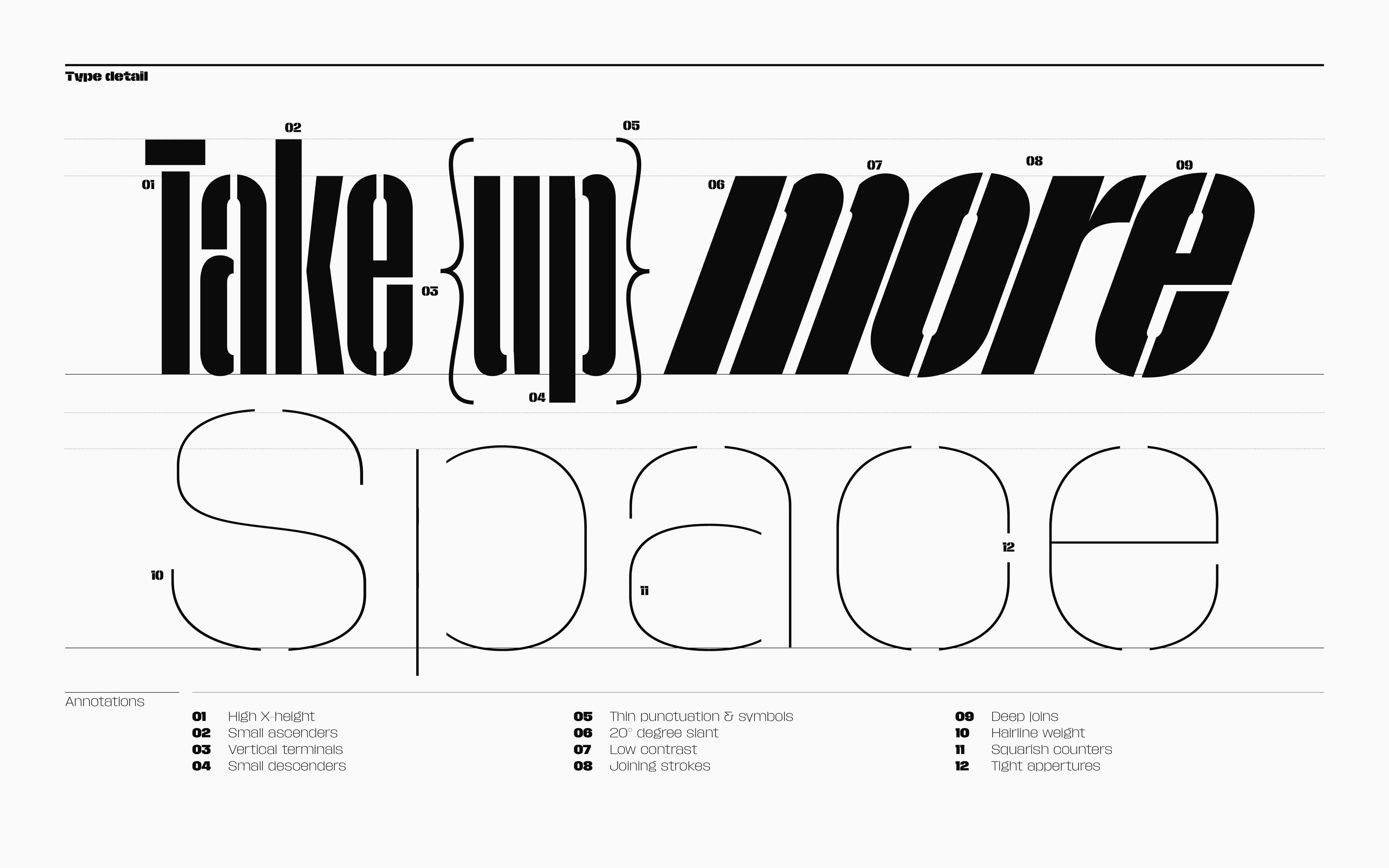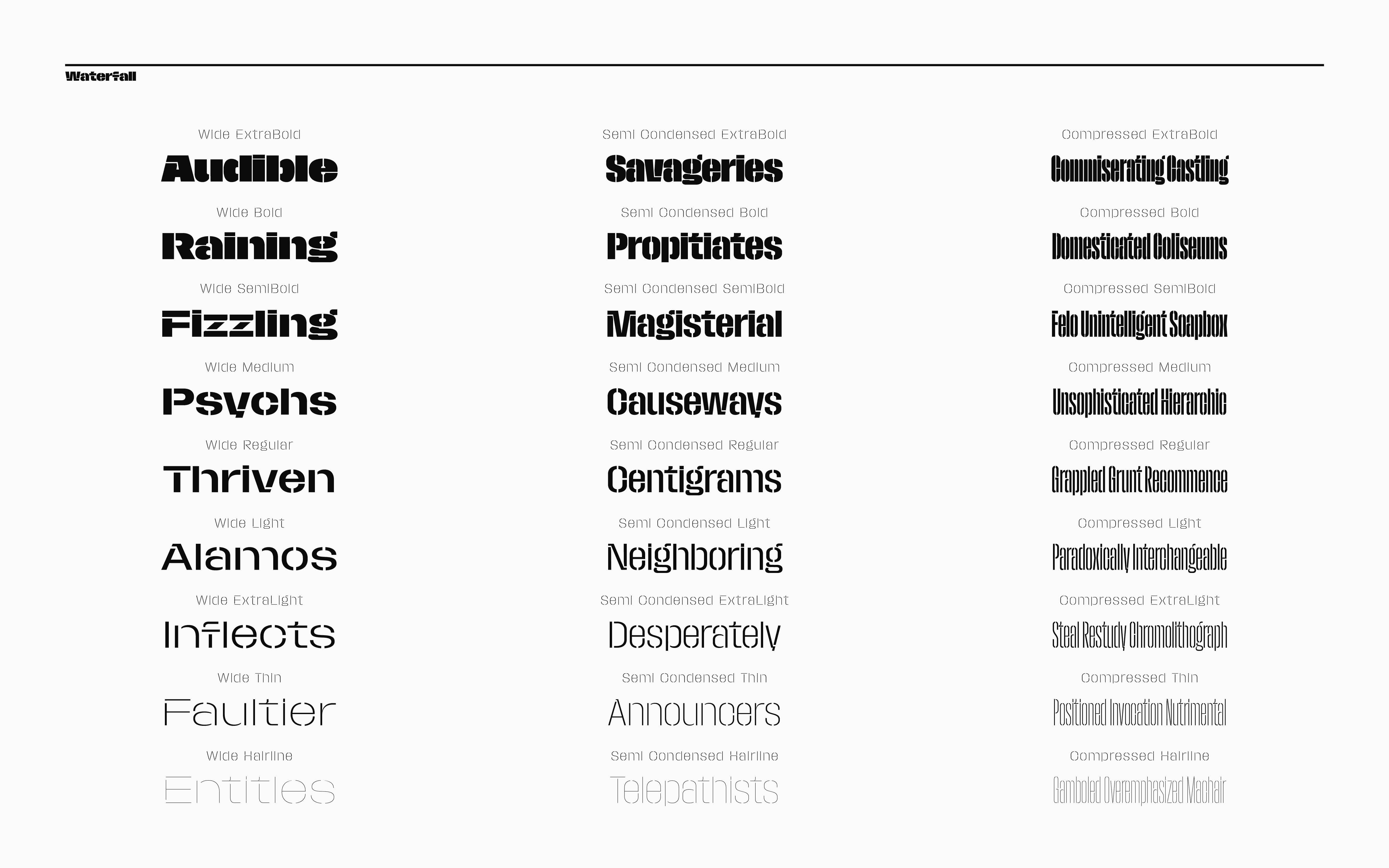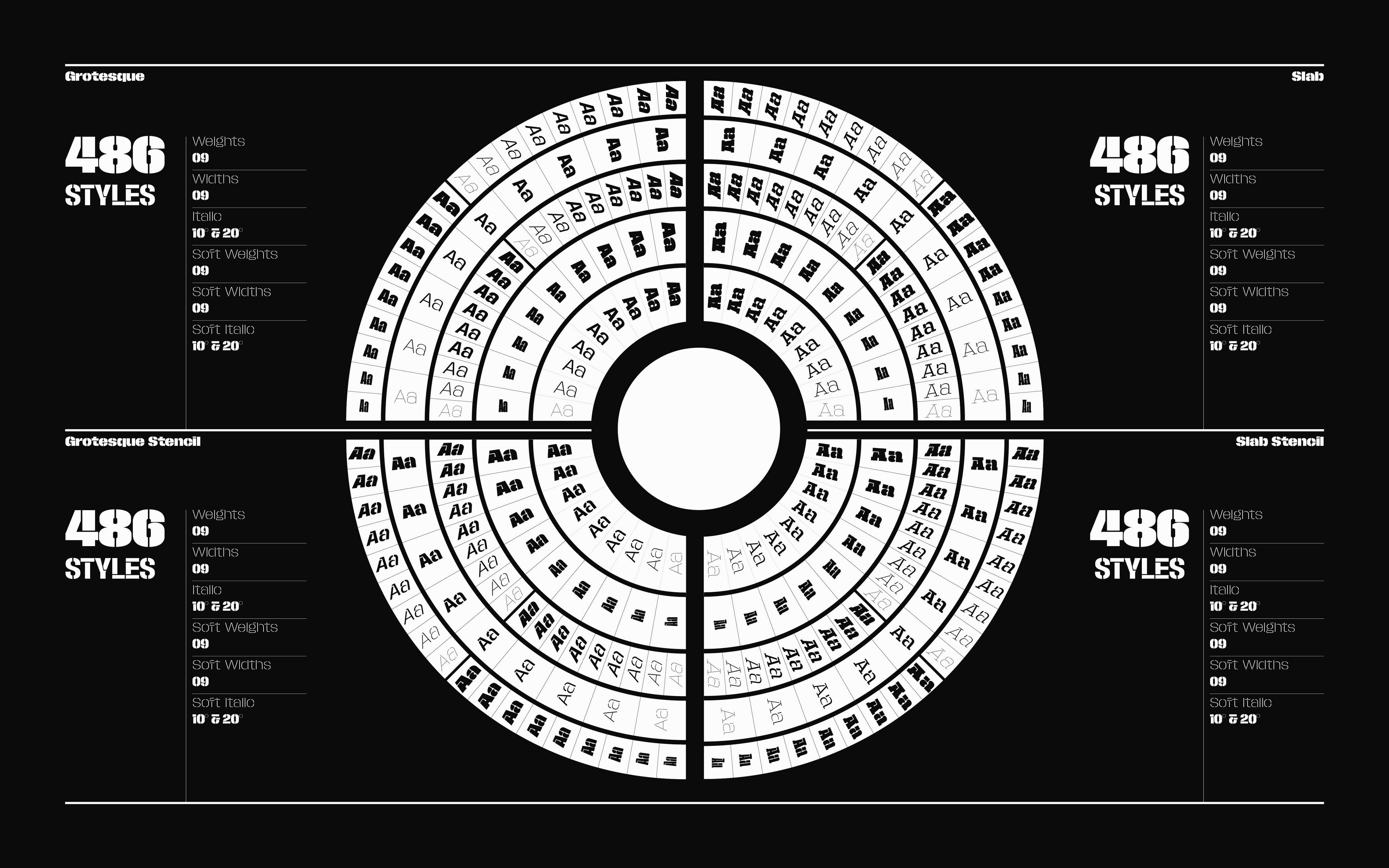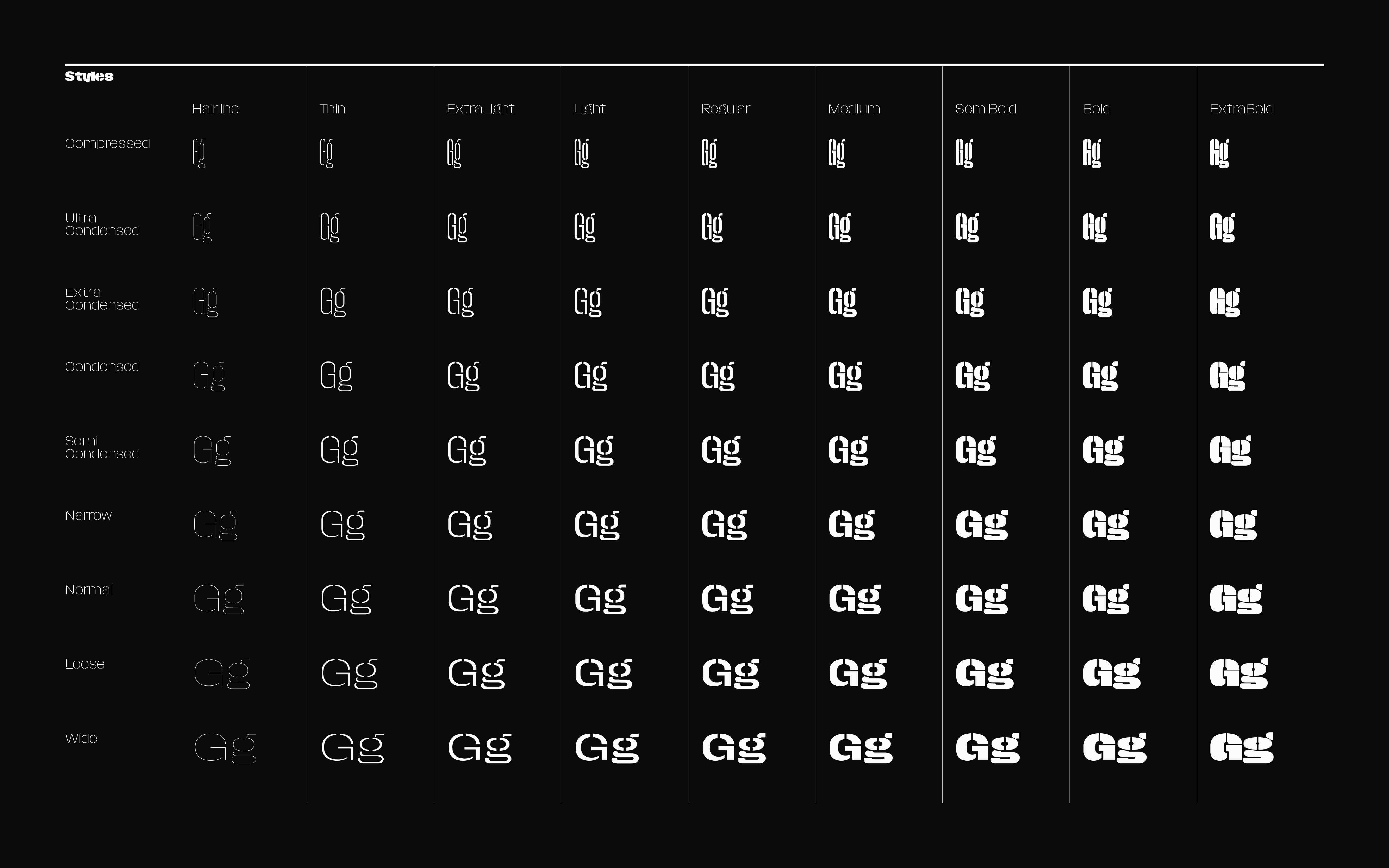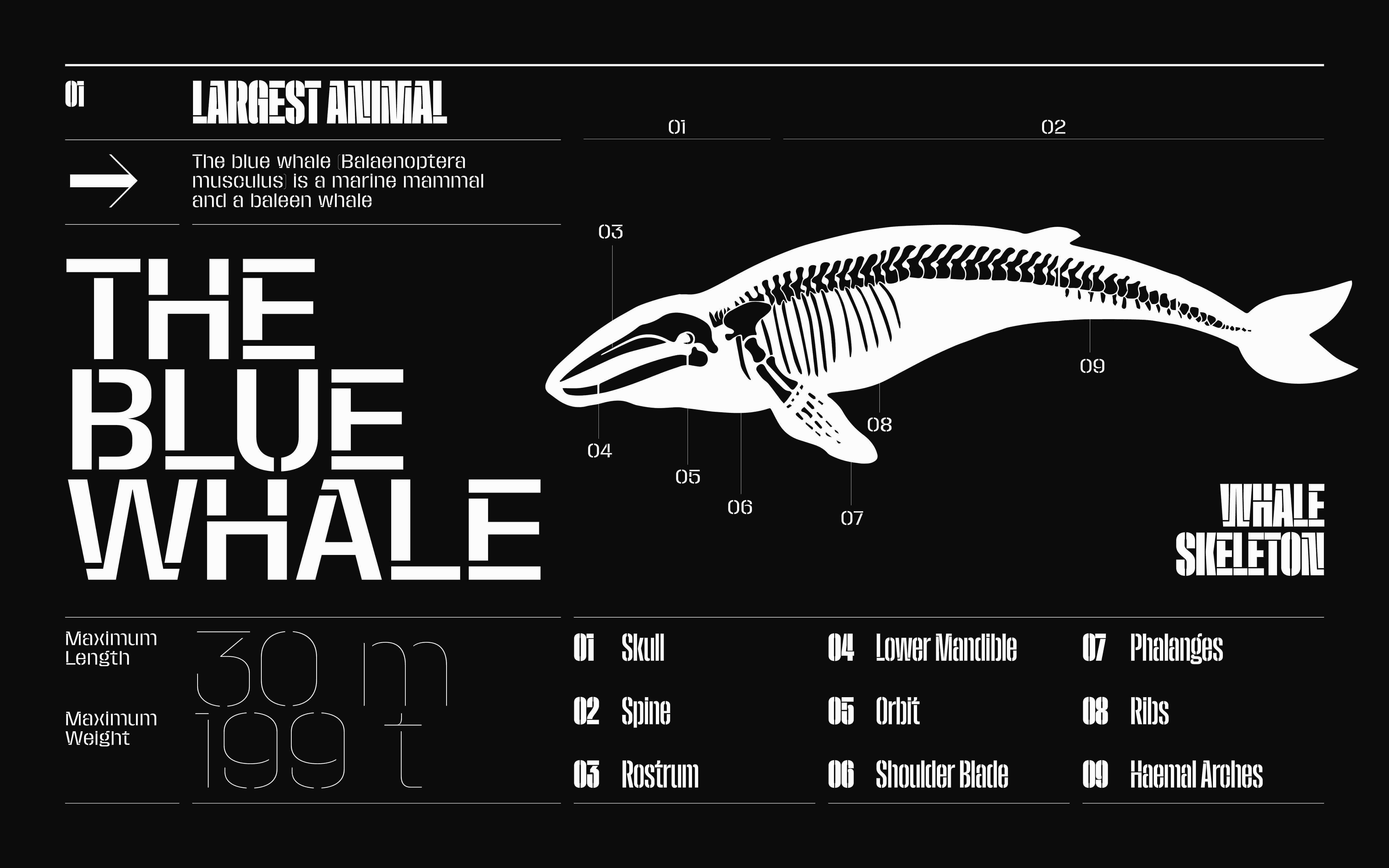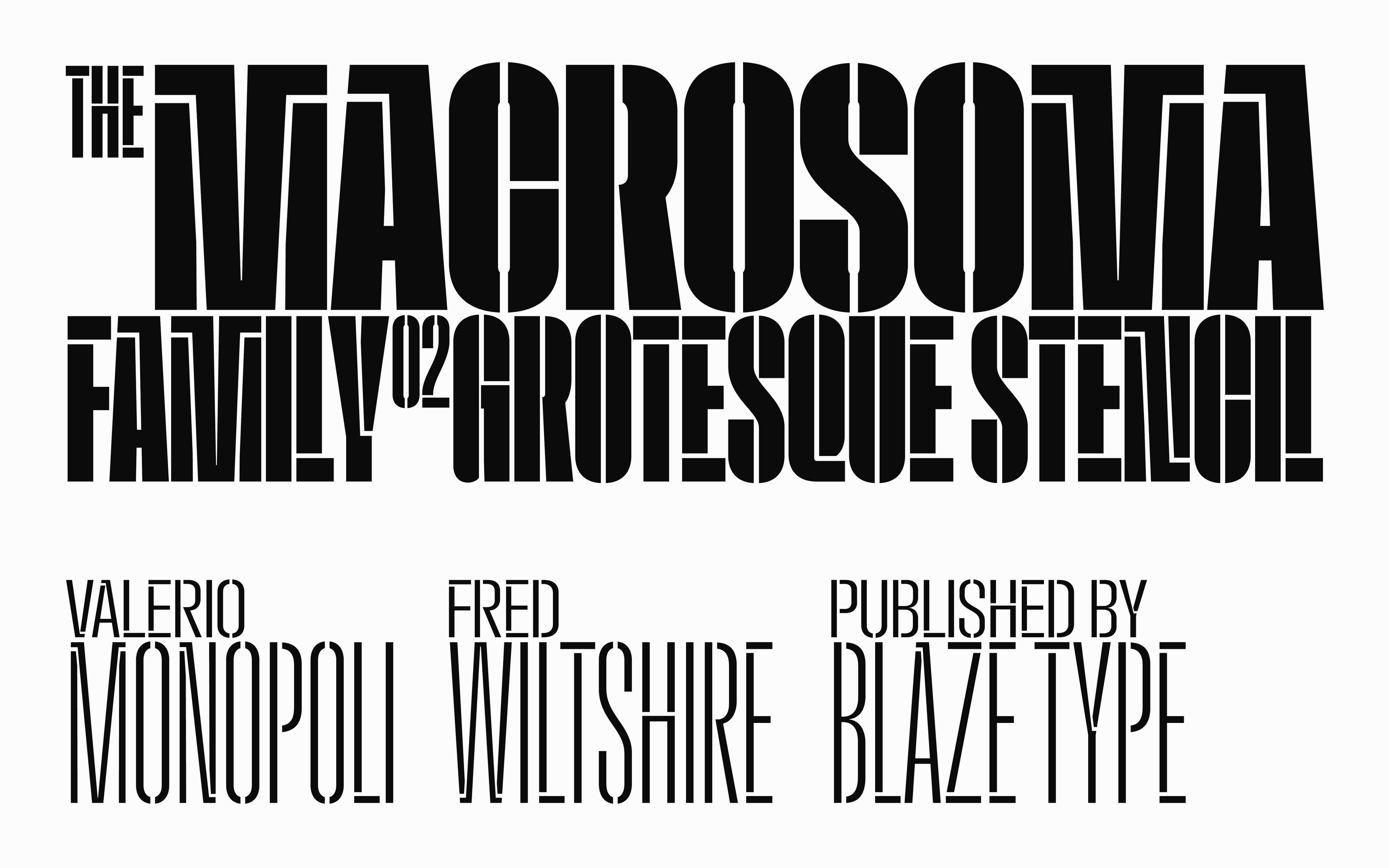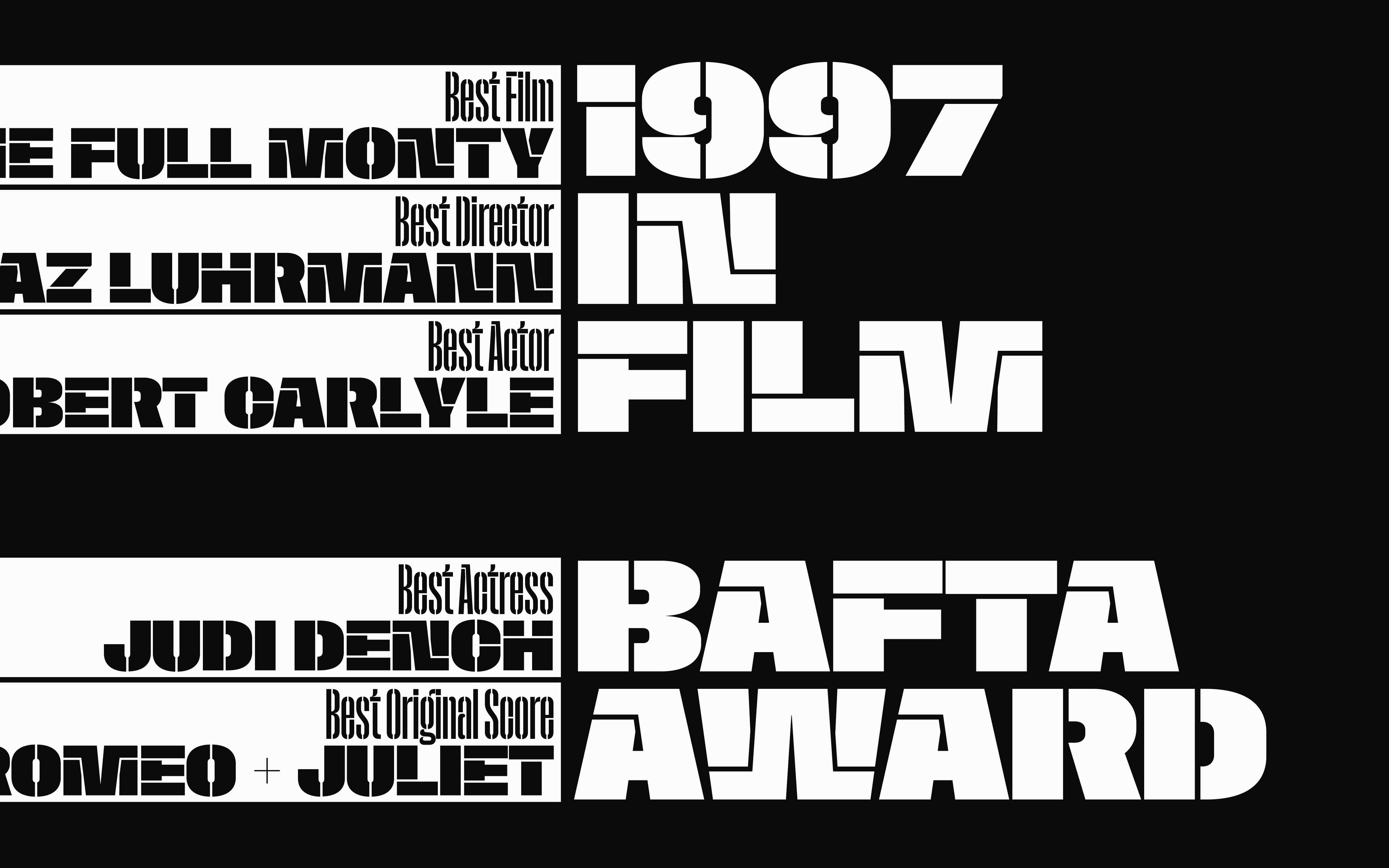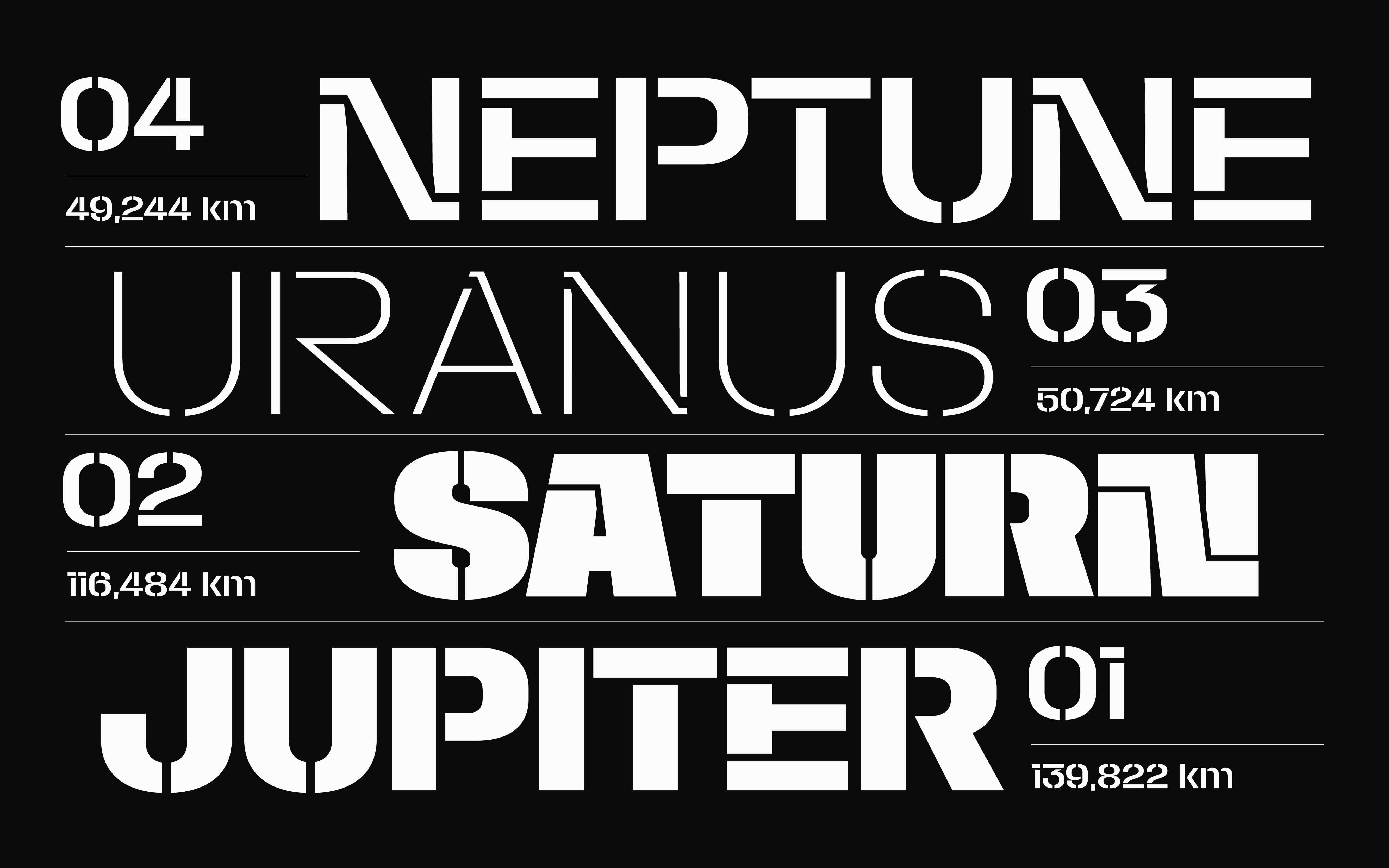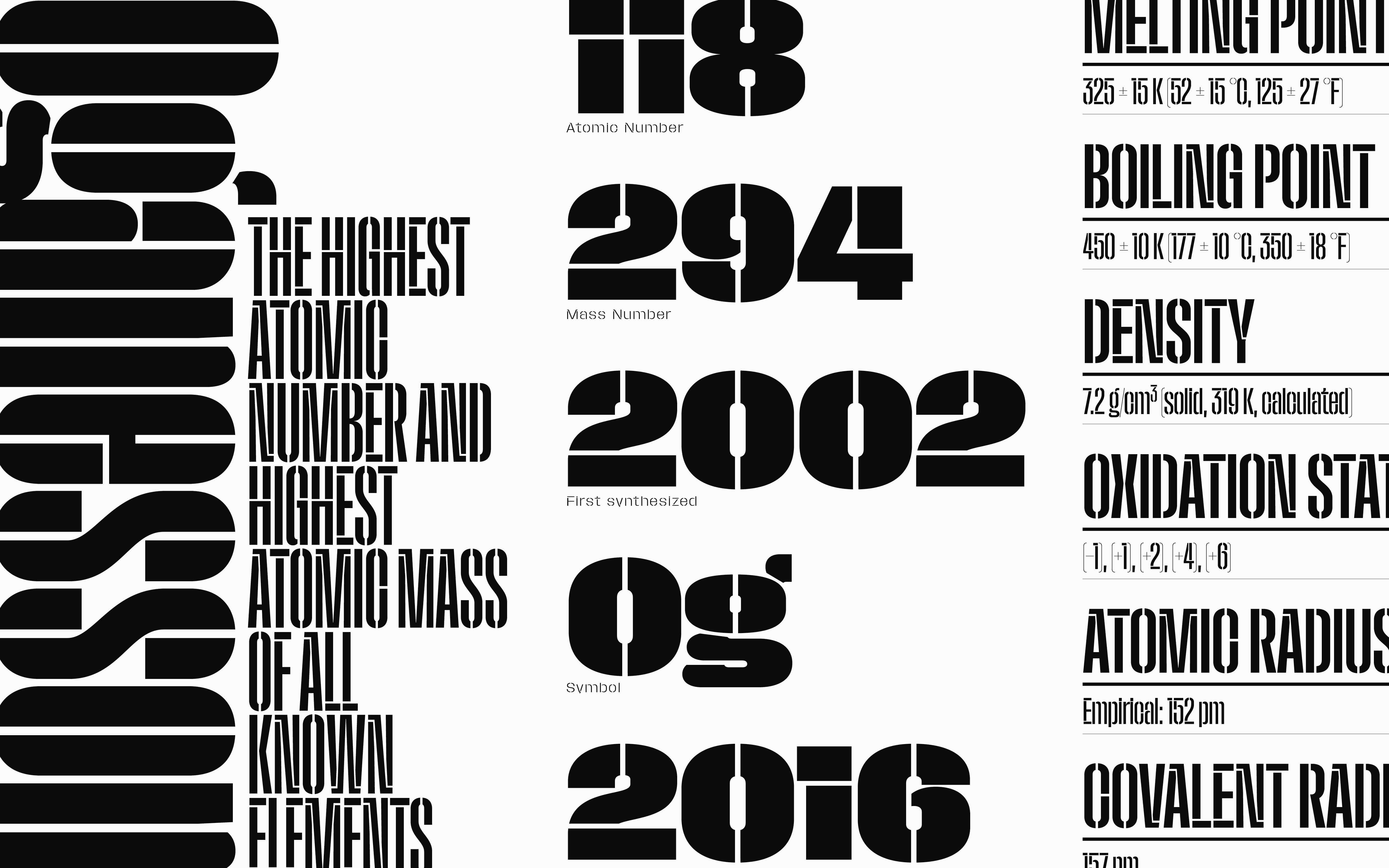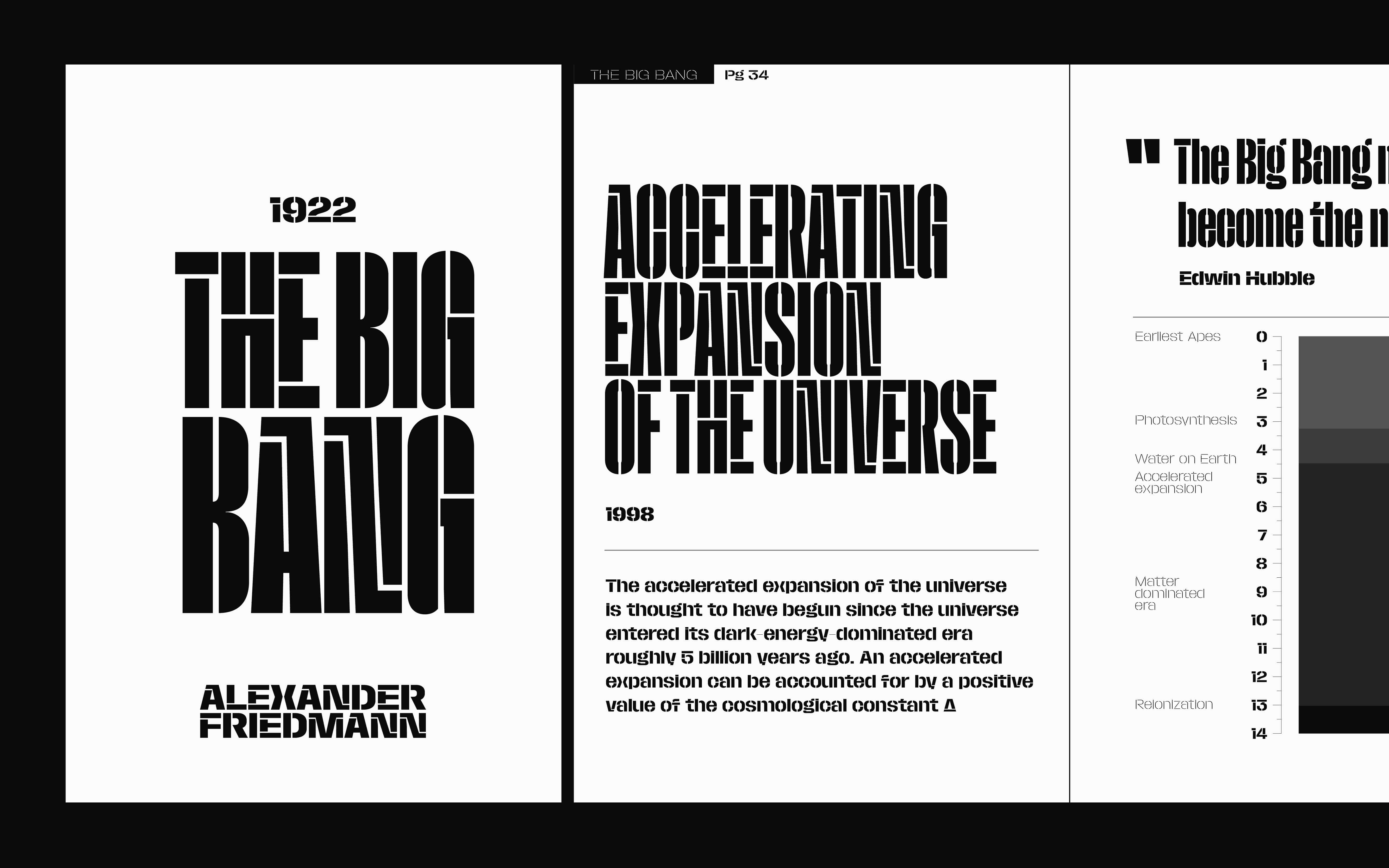
Macrosoma Stencil
Macrosoma might very well be the most expansive type family ever created. What began as a single-style condensed sans serif font has grown into an extraordinary collection of nearly two thousand single cuts. This impressive range spans almost every corner of the traditional typographic spectrum: from compressed to extended, hairline to black, sans and slab serif—each available in stencil form and with soft edges.
Despite its remarkable versatility, Macrosoma remains a truly distinctive and instantly recognisable font. It boasts several unique features, such as exceptionally short ascenders and thin punctuation, which set it apart from its sans serif contemporaries. These signature traits ensure that no matter which member of this extensive family you choose, your design will retain its uniqueness and stand out effortlessly. The second in chronological order among the many families within this massive typeface, Macrosoma Grotesque Stencil is a refined reinterpretation of the core sans serif sporting subtle openings that lighten the densest stroke connections. This balance of structure and fragmentation lends the typeface a distinctive, industrial elegance while maintaining its readability and charm.
Valerio Monopoli , Fred Wiltshire